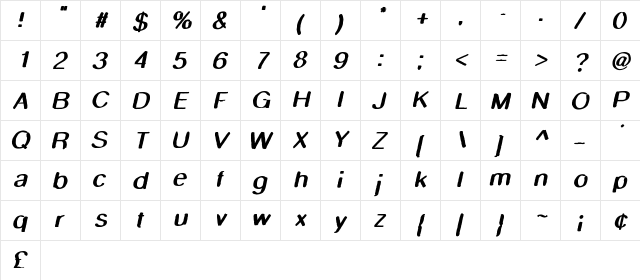
SmudgeStick Oblique
Design Context for SmudgeStick Typeface
SmudgeStick offers clean, dependable letterforms without strong stylistic allegiance, making it a practical choice for designers who need flexibility. Its italic angle brings a sense of urgency and motion to the letterforms.
Pro Tip: Use SmudgeStick for emphasis, pull quotes, and subheadings where its slanted energy can add rhythm to the layout.